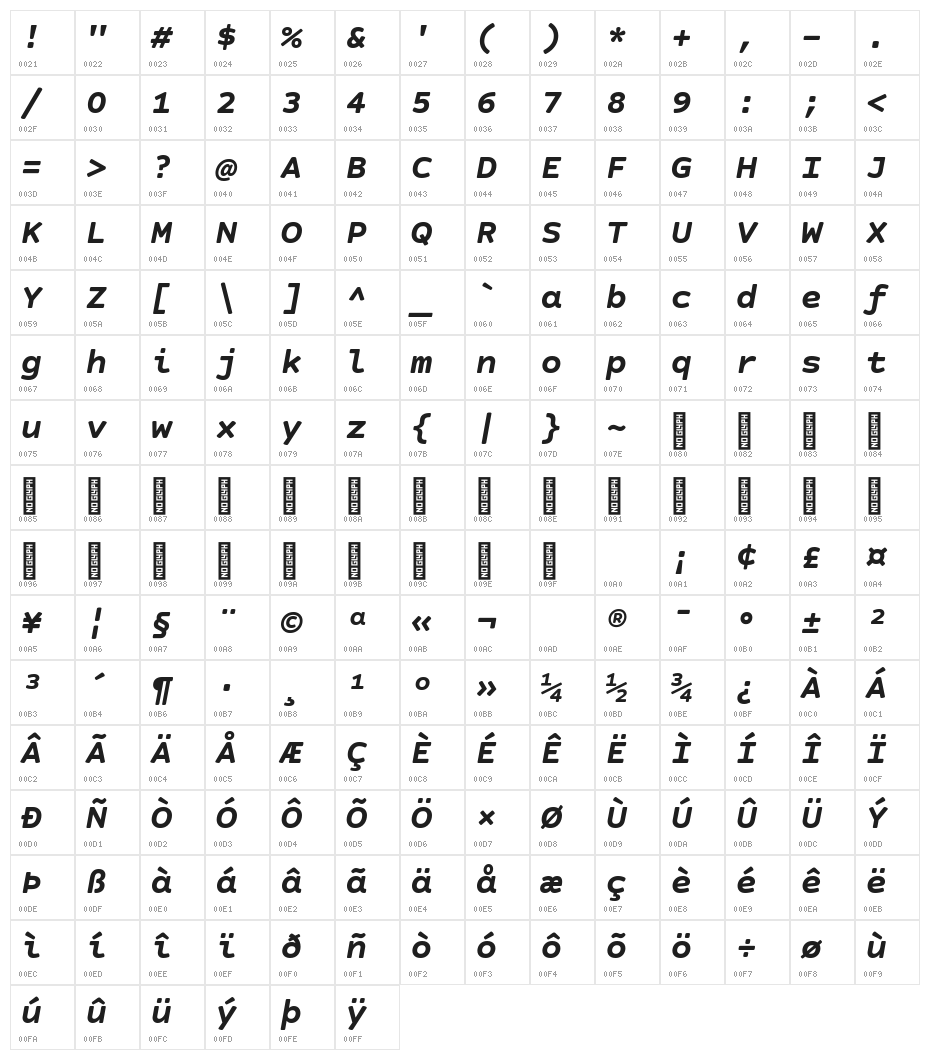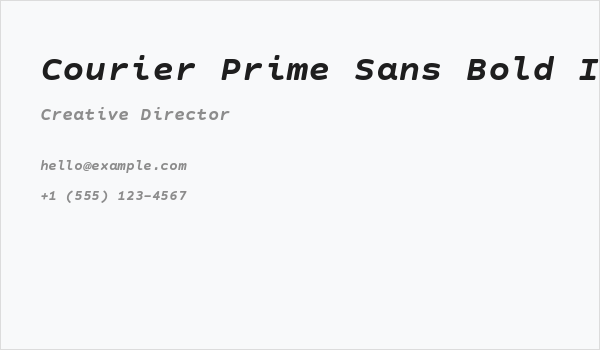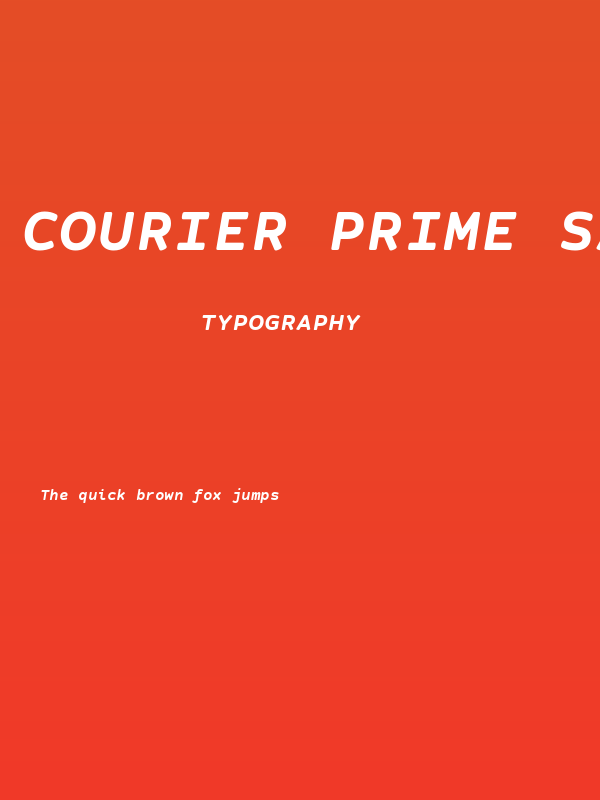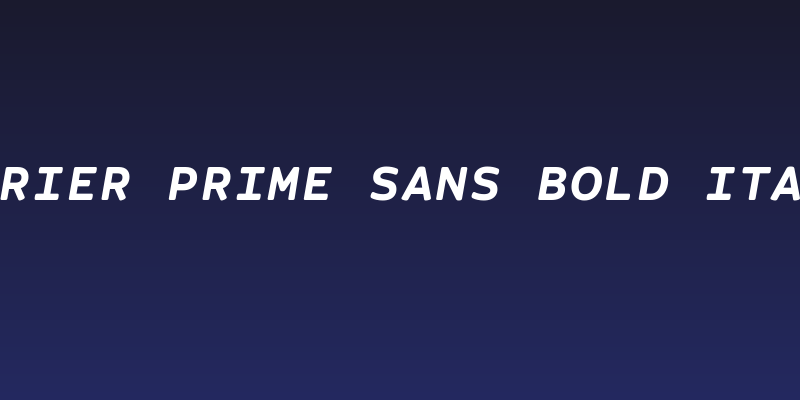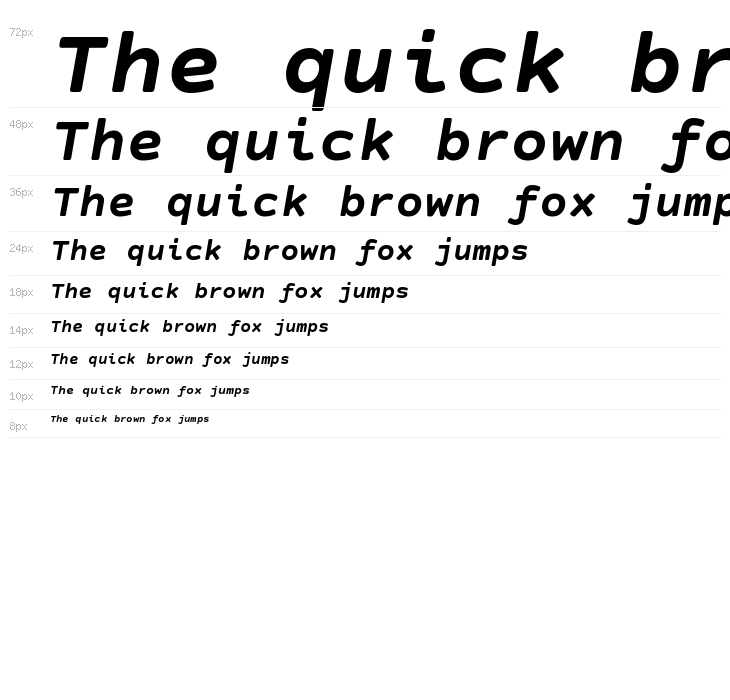
Courier Prime Sans Bold Italic Font
Courier Prime Sans Bold Italic Description
This font is a monospaced typeface that combines the clarity and readability of a sans-serif design with the uniformity of a monospaced structure. Each character is evenly spaced, making it ideal for coding and tabular data. The bold weight adds emphasis and strength, while the italic style introduces a dynamic and modern feel. The characters are clean and straightforward, with a slight slant that enhances the italic effect. The numerals and special characters are well-defined, ensuring consistency across different uses.
| Use Case | Coding, Technical documentation, Tabular data |
| Proposed Projects | Ideal for coding environments, technical documentation, and any project requiring precise alignment and readability. |